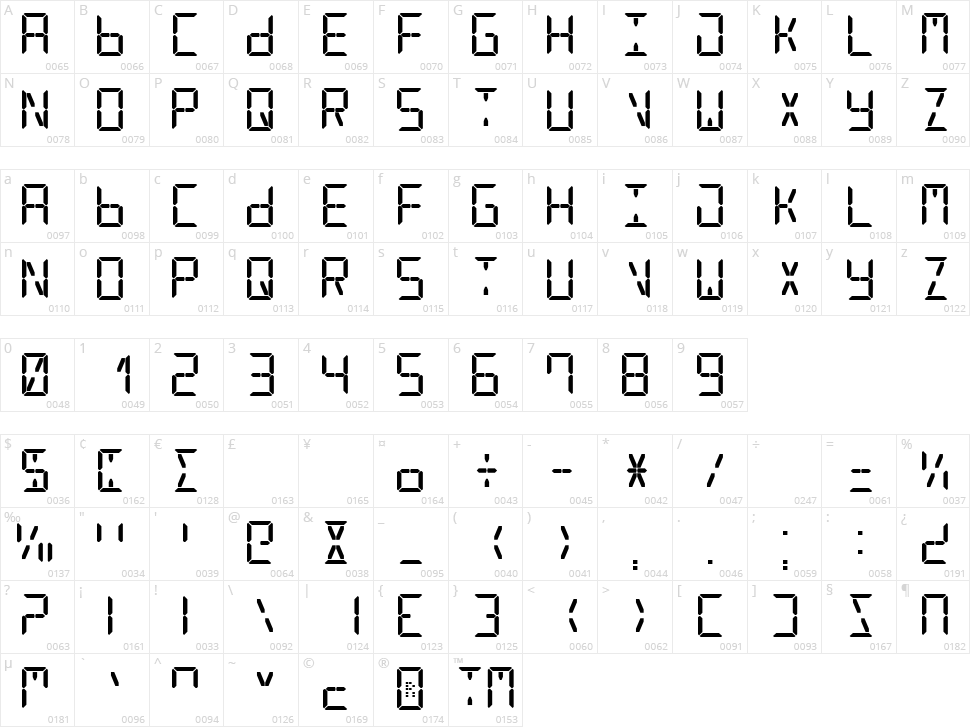
Digital Counter 7
Original seven segments digital font but with additional internal segments to show letters and specific symbols. The font has "Italic" style. Cyrillic symbols are supported.
- Height and width of the font symbols are increased.
- Cyrillic symbols is added.